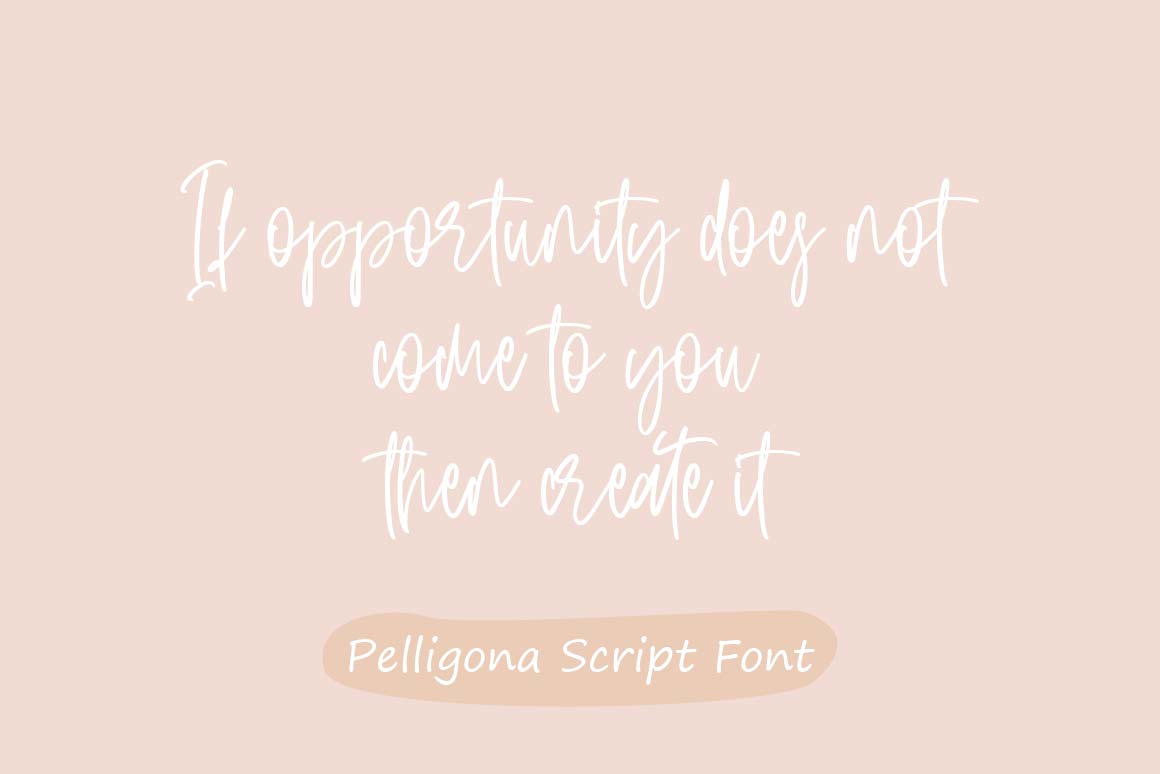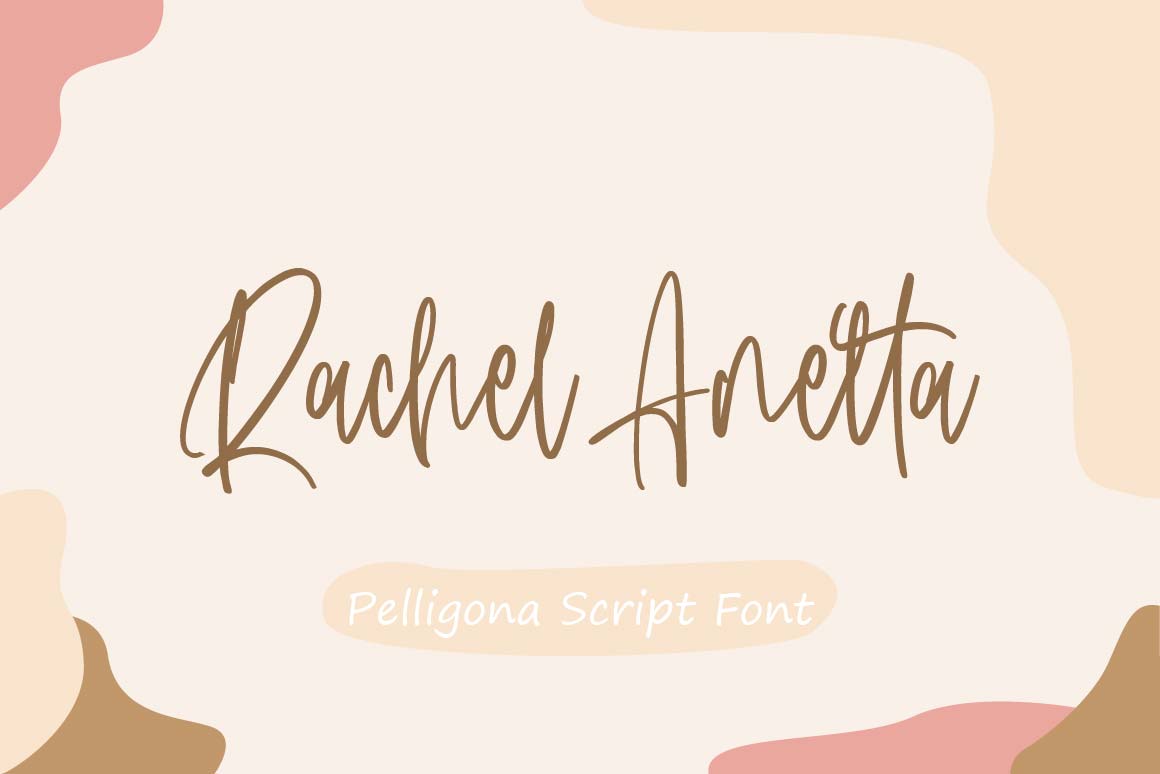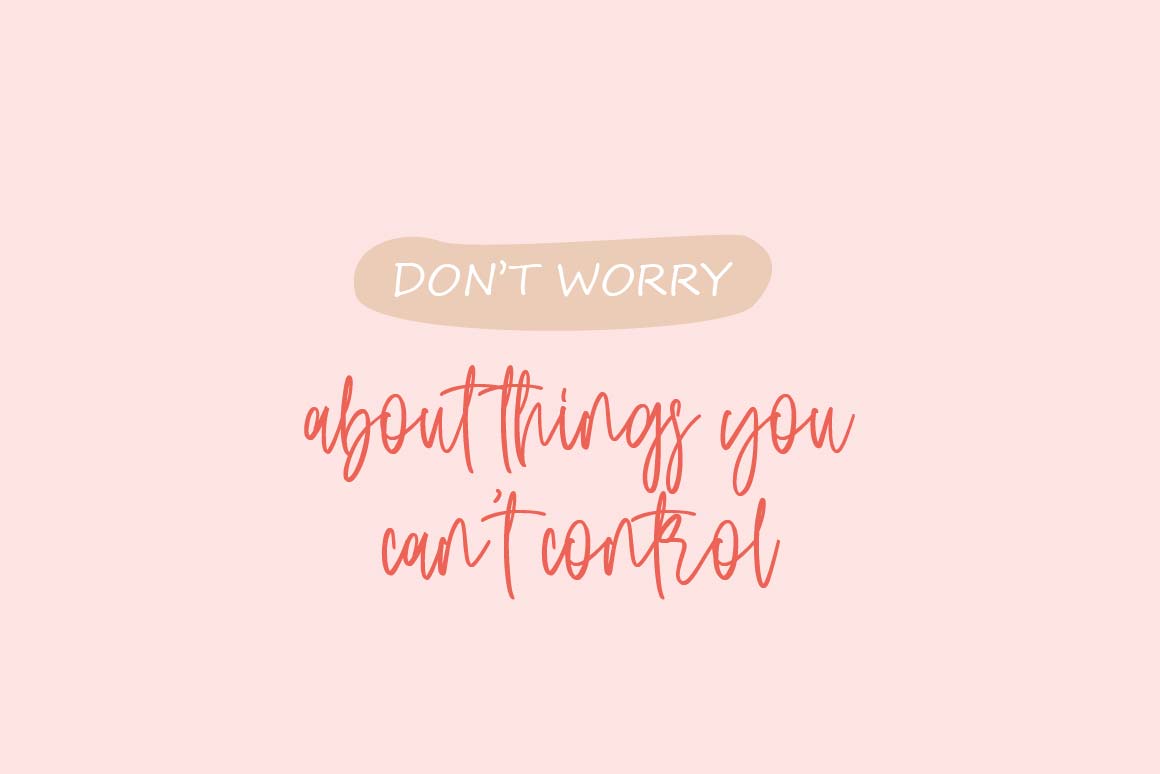
Pelligona Font
Pelligona Script Font is a modern siganture type of font with a modern twist. It’s perfect for many different projects and comes with a bonus font with cute drawings.
– Uppercase, Lowercase, Numeral & Punctuation
– Alternate Letters, Ligature & Swash/Tail